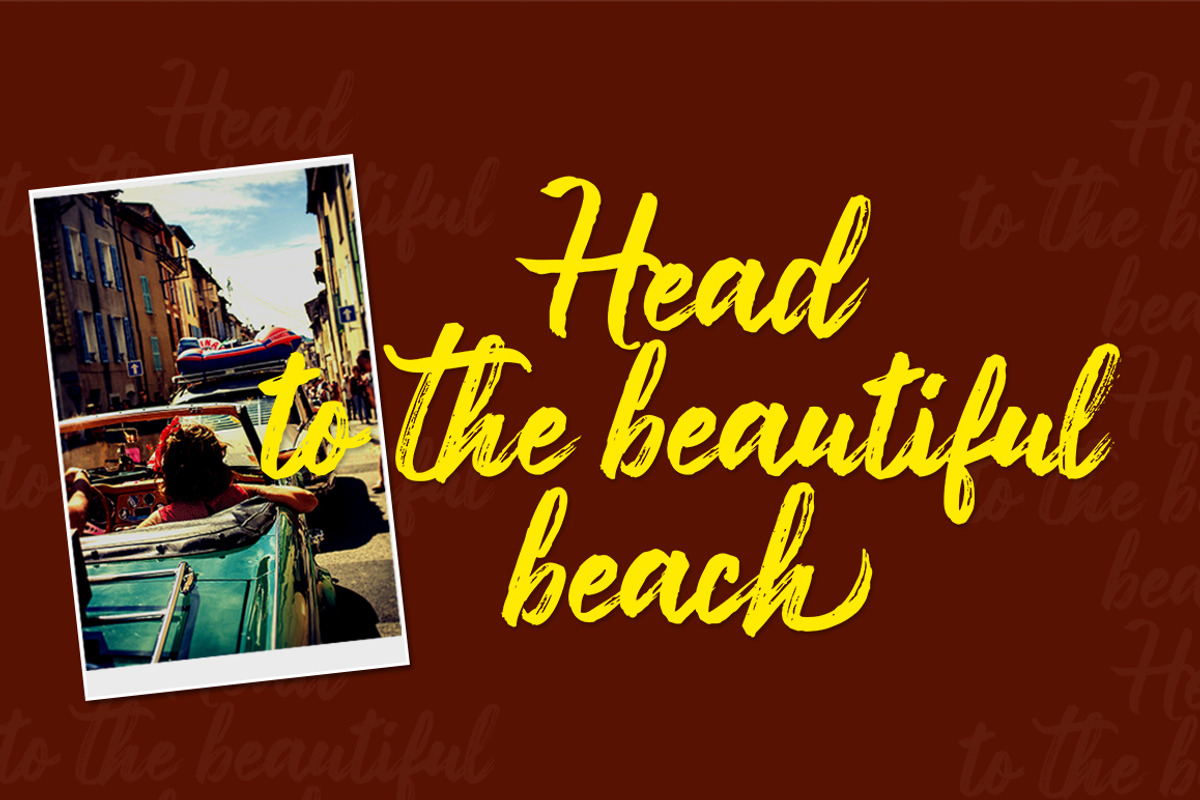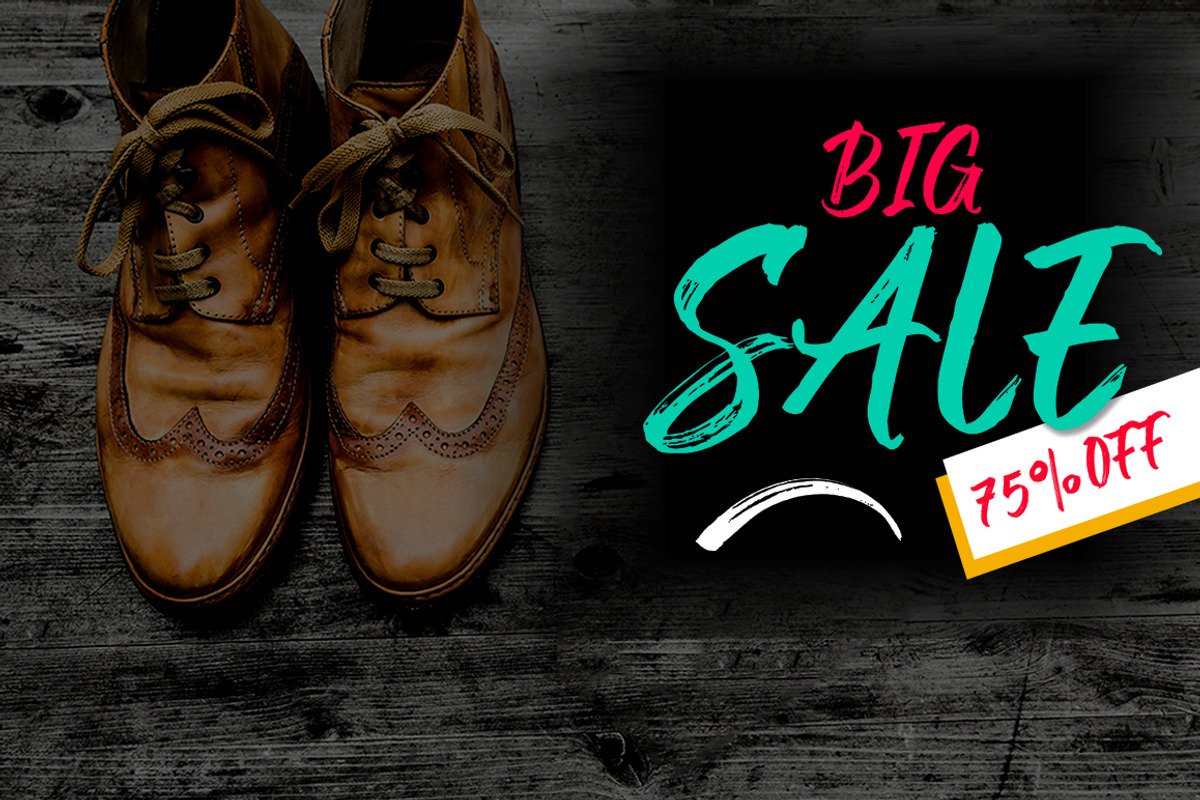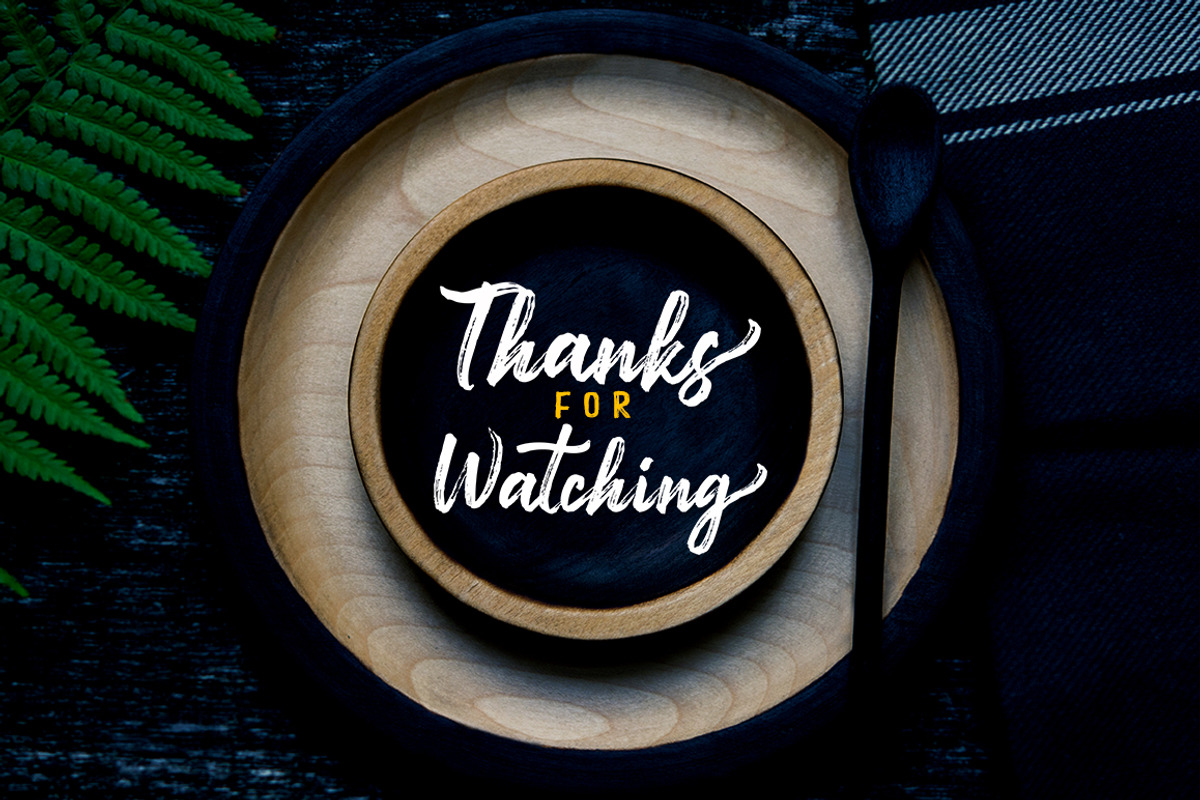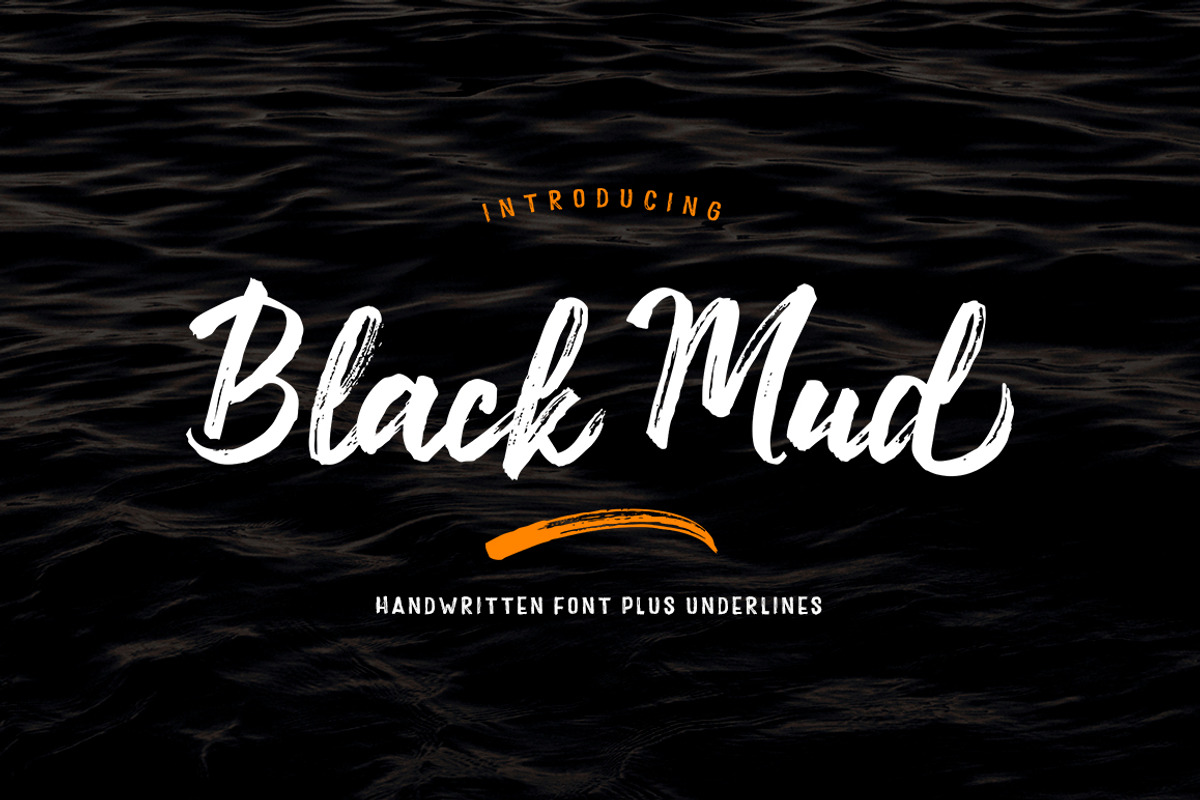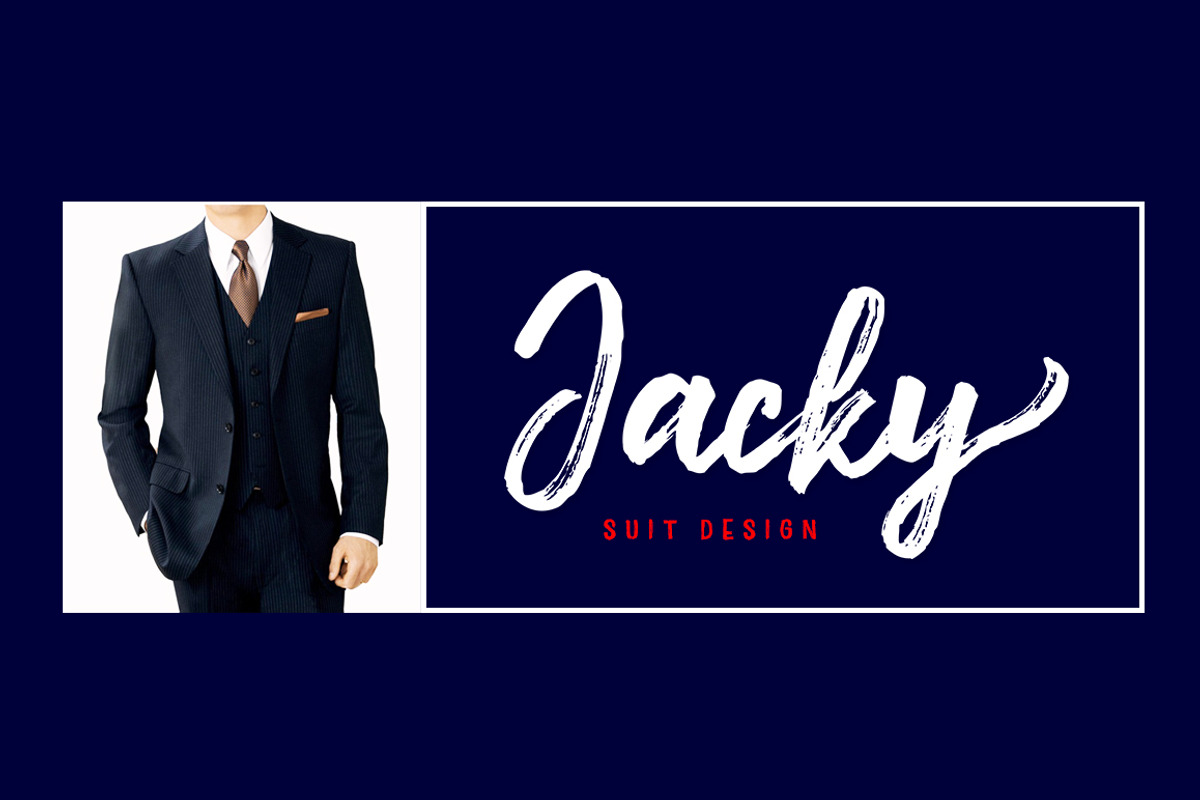
Black Mud
Black Mud Script is a modern brush font, organic, dynamic and energetic sytle.Can used for various purposes. such as the title, signature, logo, correspondence, wedding invitations, letterhead, signage, labels, newsletters, posters, badges, etc.